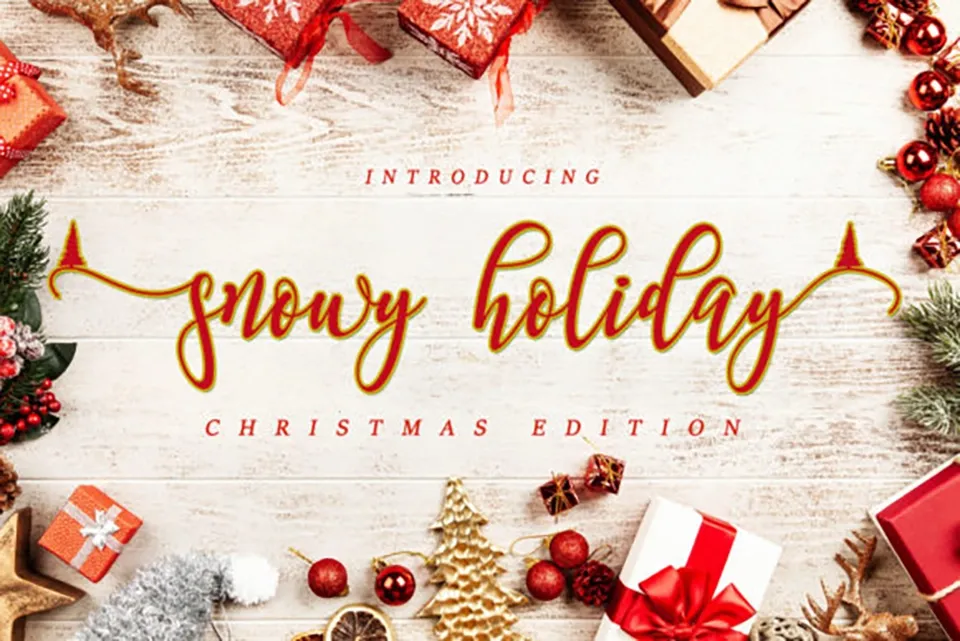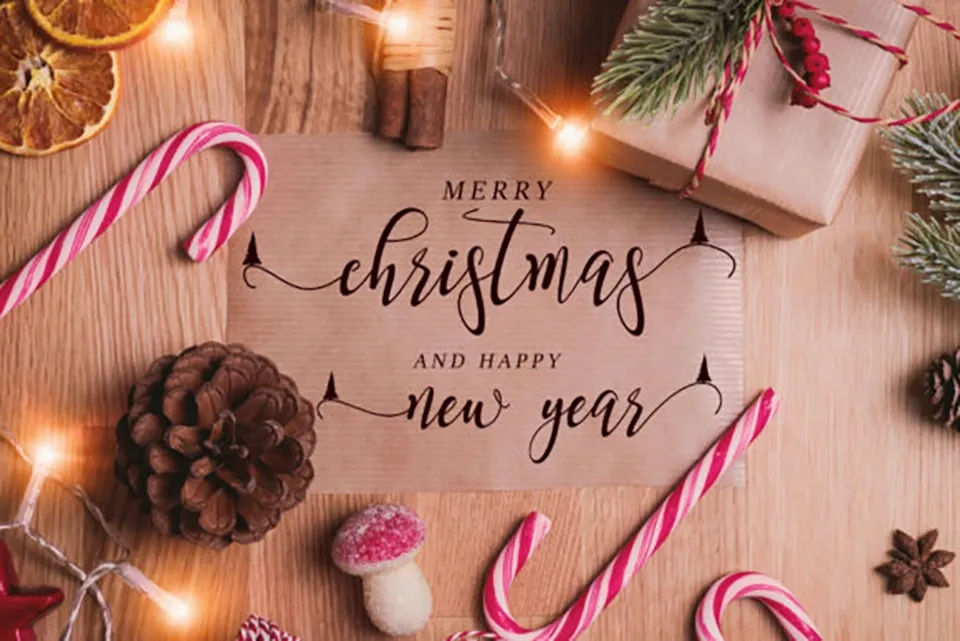
Snowy Holiday Font
Snowy Holiday Font is a festive and elegant script typeface designed to bring warmth and charm to your holiday-themed projects. Featuring smooth, flowing letterforms with decorative swashes, it perfectly captures the magic and joy of the Christmas season. Its sophisticated yet playful design makes it ideal for greeting cards, invitations, gift tags, and seasonal branding. Snowy Holiday Font adds a touch of whimsy and celebration to your text, making every design feel special and memorable. Whether for personal or professional use, this font is the perfect choice to infuse your creations with holiday spirit and timeless beauty.